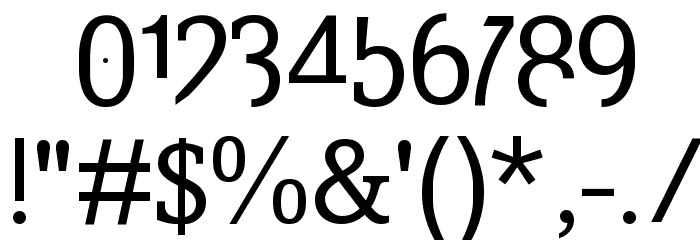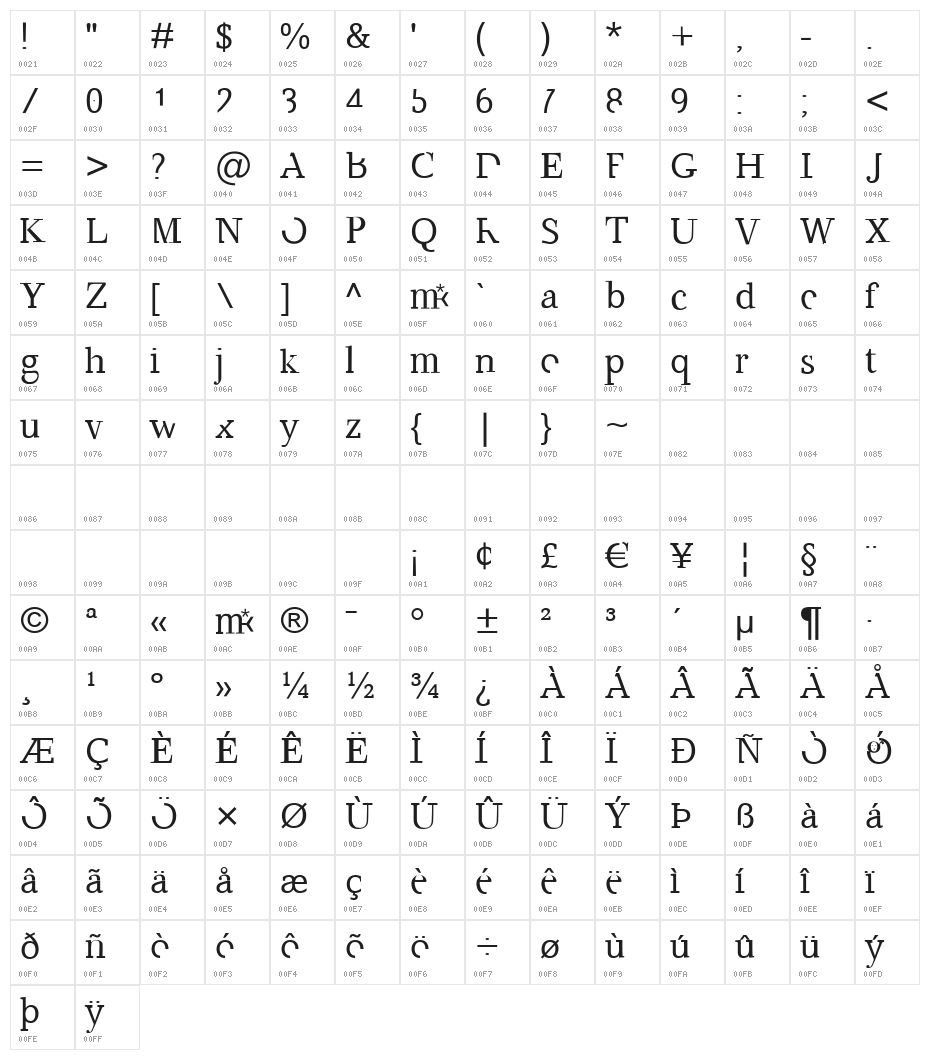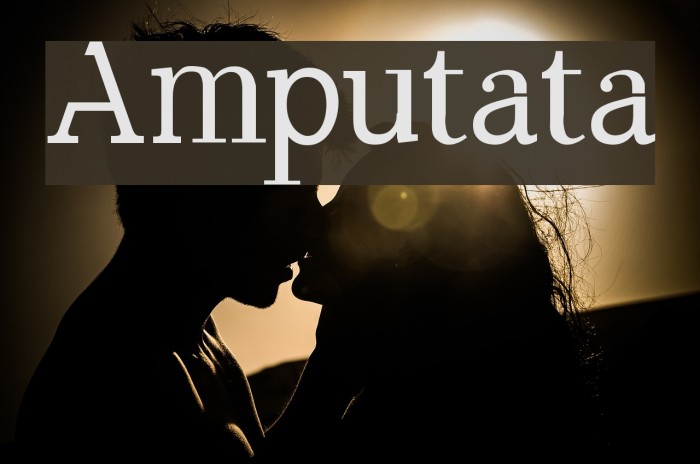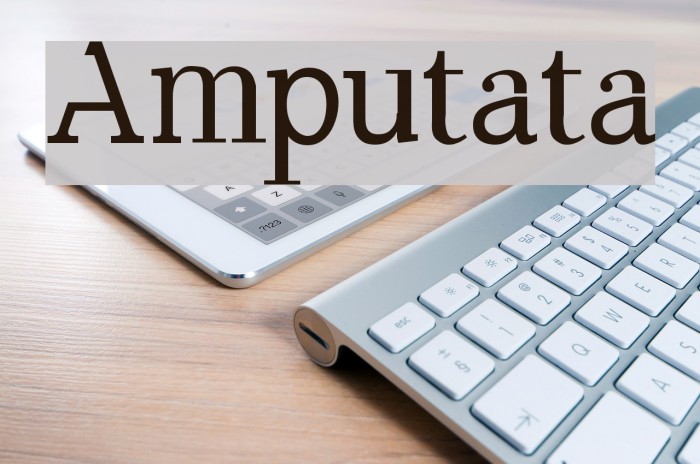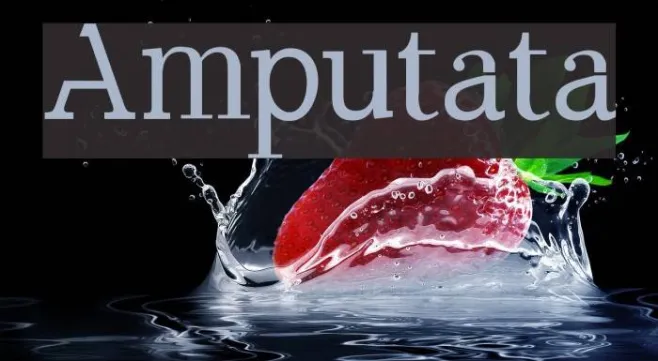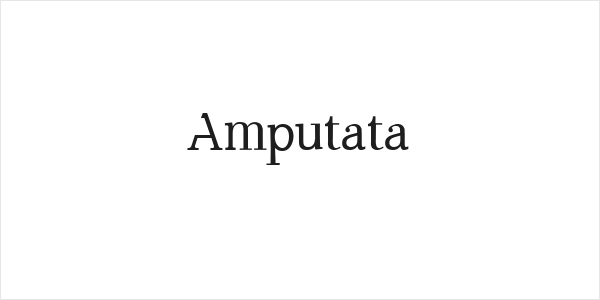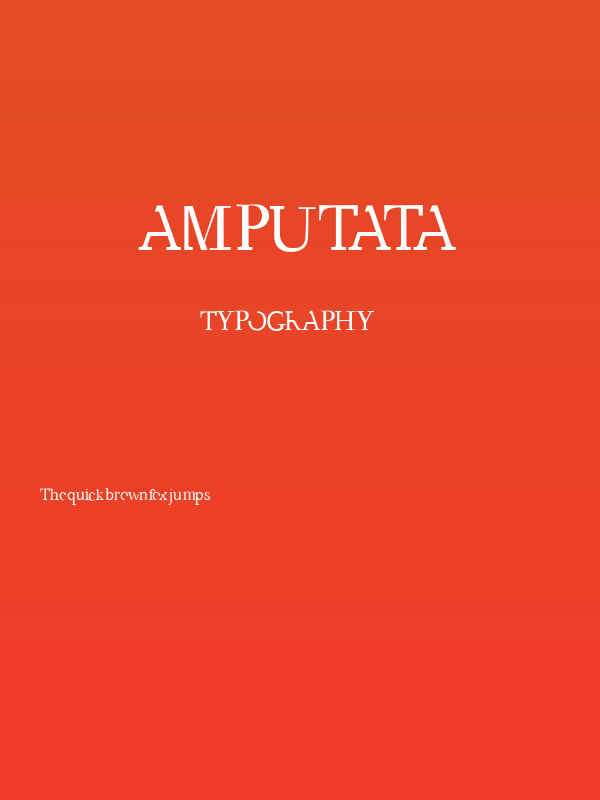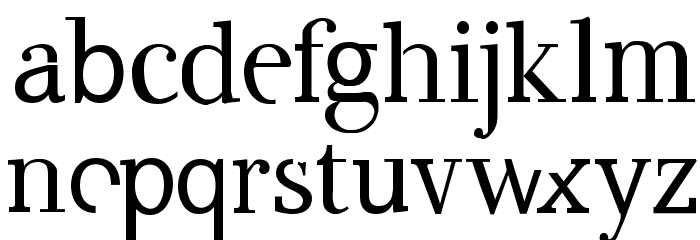
Amputata Font
Amputata Description
This font features a unique and modern serif style with a distinct geometric influence. The uppercase letters have a strong presence with sharp angles and clean lines, while the lowercase letters maintain a more traditional serif appearance. The numerals are consistent with the overall style, offering a balanced and cohesive look. Special characters are well-integrated, maintaining the font's aesthetic. The combination of modern and classic elements makes it versatile for various design applications.